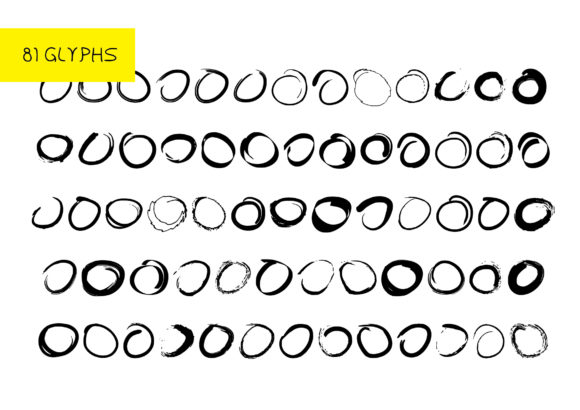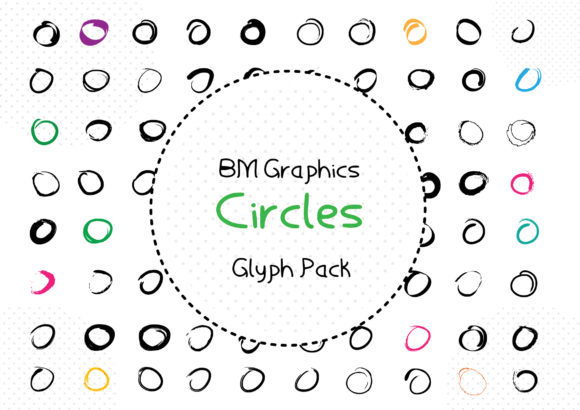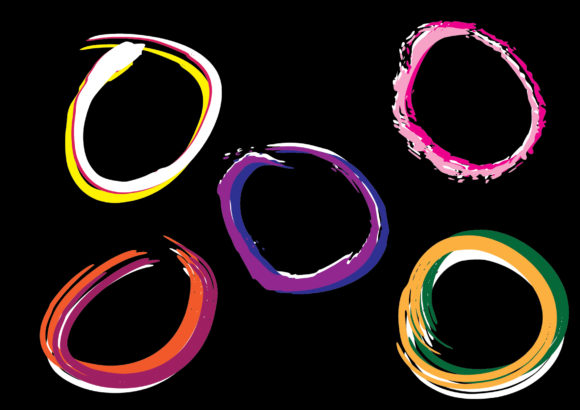
About BM Graphics – Circles 2 Font
The Circles dingbats font sounds like a versatile and creative tool for adding unique and personalized circles to your design projects. Here are some ways you can make the most of this font:
1. Graphic Design: Incorporate the Circles glyphs into your graphic design projects to create interesting patterns, backgrounds, or decorative elements. The varied styles and sizes of circles available in the font can add visual interest and depth to your designs.
2. Logos and Branding: If you’re working on logo design or branding projects, the Circles dingbats font can be a valuable resource. Use the circle glyphs to create custom icons, symbols, or patterns that align with your brand identity. These unique circles can help make your logo and branding materials stand out.
3. Web Design: Integrate the Circles glyphs into your web design projects to add visually appealing elements to your website. You can use them as background patterns, buttons, or dividers to create a cohesive and engaging user interface.
4. Print Materials: Whether it’s business cards, brochures, or stationery, the Circles dingbats font can add a touch of creativity to your printed materials. Use the circles as decorative elements, borders, or even as part of illustrations to make your print designs more visually appealing.
5. Art and Crafts: Explore your creativity by incorporating the Circles glyphs into your art and craft projects. You can use them as stencils, templates, or inspiration for creating patterns and designs on various surfaces, such as canvas, fabric, or paper.
6. Patterns and Textures: Experiment with the Circles glyphs to create unique patterns and textures. Combine different sizes, styles, and arrangements of circles to design visually captivating backgrounds or overlays for your digital or print projects.
Remember to play around with the various options available in the Circles dingbats font to find the right combination of circles that suits your project. With its diverse range of circle designs, this font can provide endless creative possibilities and help you add a personalized touch to your designs.